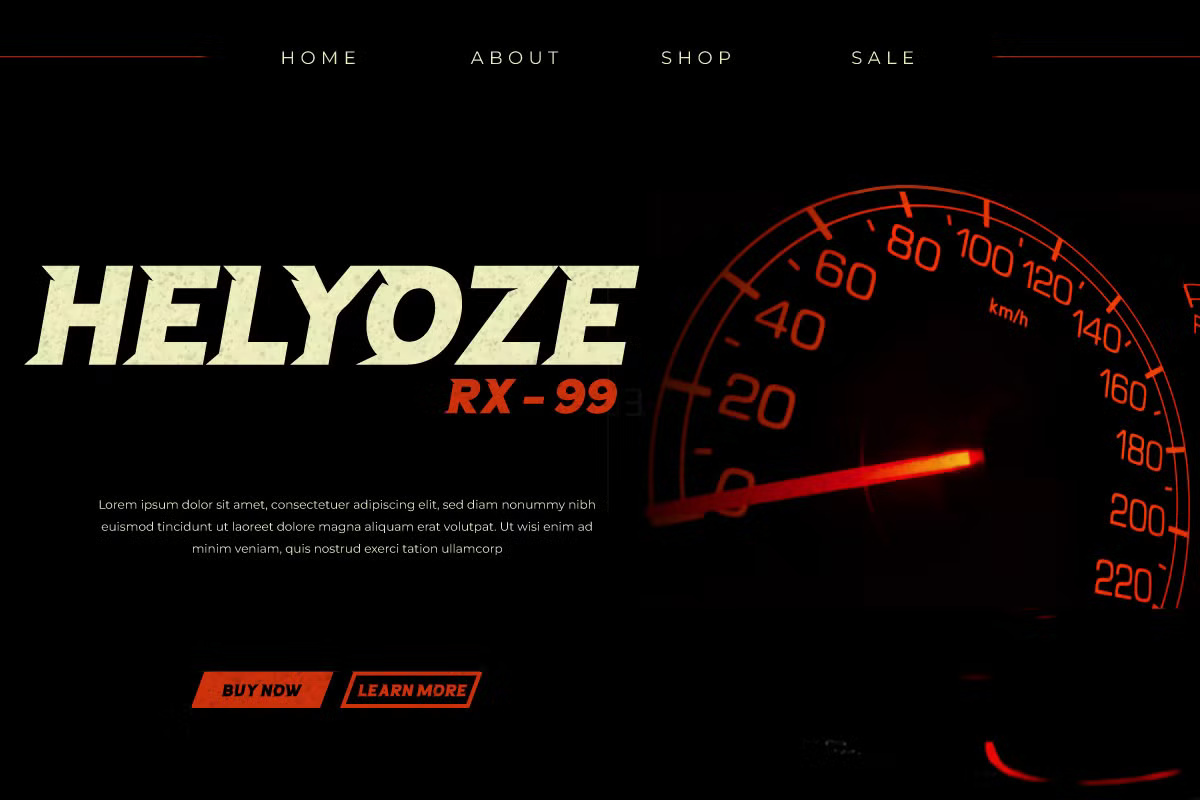
Lenozkonser Font
Lenozkonser is a bold and aggressive display racing typeface, perfect for high-speed, action-packed designs. With its sharp angles and high contrast, it embodies the essence of speed, making it ideal for branding racing cars, motorsport events, dynamic posters, and sportswear printing. Each character is designed to create a sense of motion, ensuring your text appears fast, strong, and invincible.
Sporty and aerodynamically crafted, Lenozkonser seamlessly fits racing and competition-themed designs. Its dynamic and aggressive style makes it a perfect choice for designing logos for racing teams, high-octane event invitations, and any project that demands a powerful, energetic aesthetic.
Lenozkonser Display Font